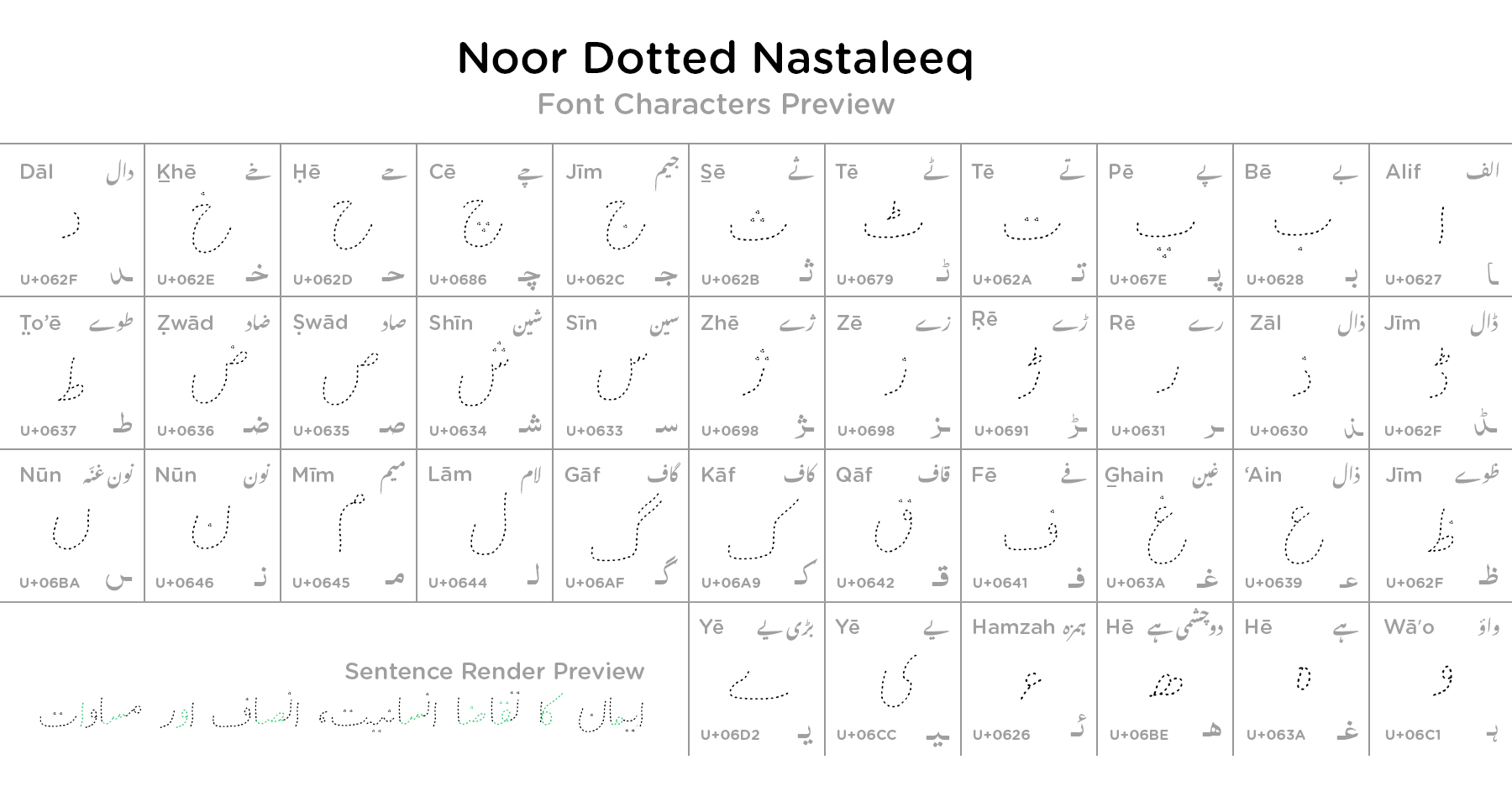
Noor Dotted Nastaleeq is a TrueType Urdu font with a dotted appearance. Its letters are constructed in a way that presents an easy way to draw or trace Urdu characters when printed. That is why such fonts are also called tracing fonts. Released on June 4, 2021, the font offers a character set comprising 203 letters with an extensive glyph count of 1205, increasing the font's ability to seamlessly integrate into various design platforms. The unique factor about this font is unlike other dotted fonts; this one draws inspiration from traditional Nastaliq calligraphy. The letters have a compact baseline with a visible slant, which is a true Nastaleeq attribute.